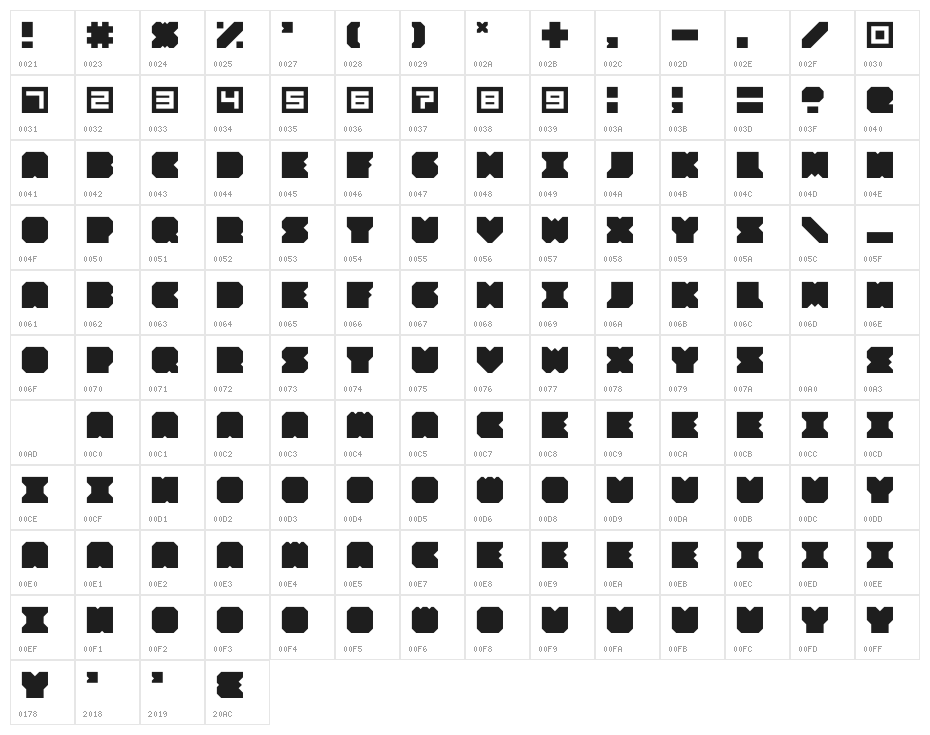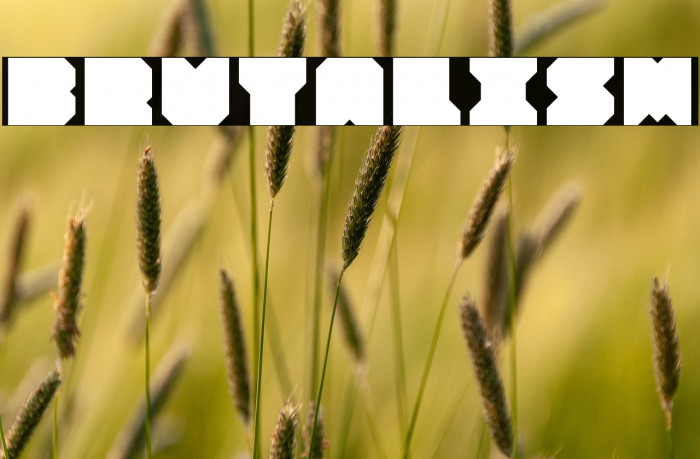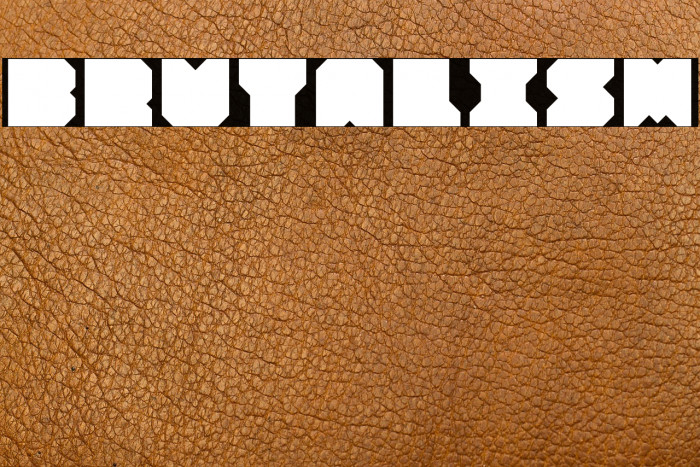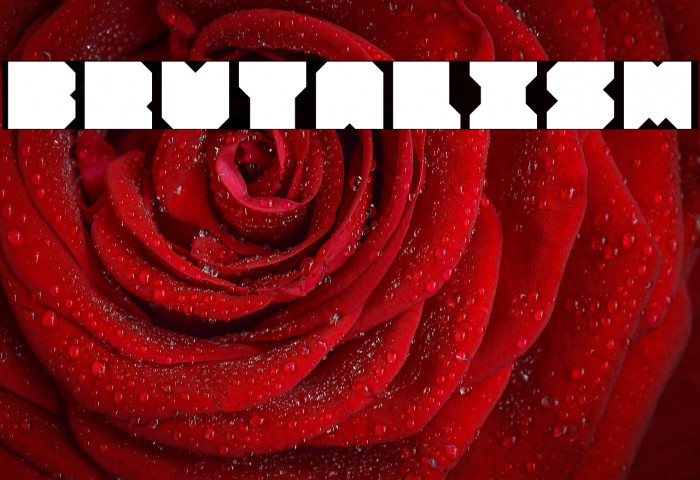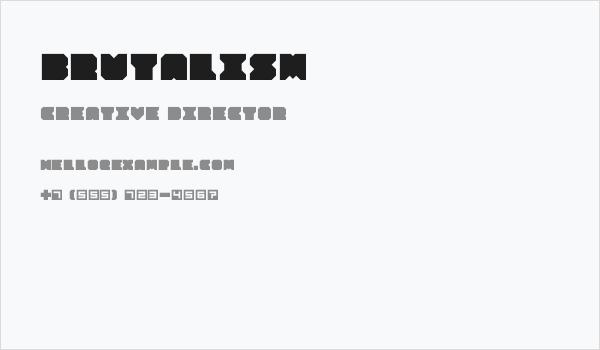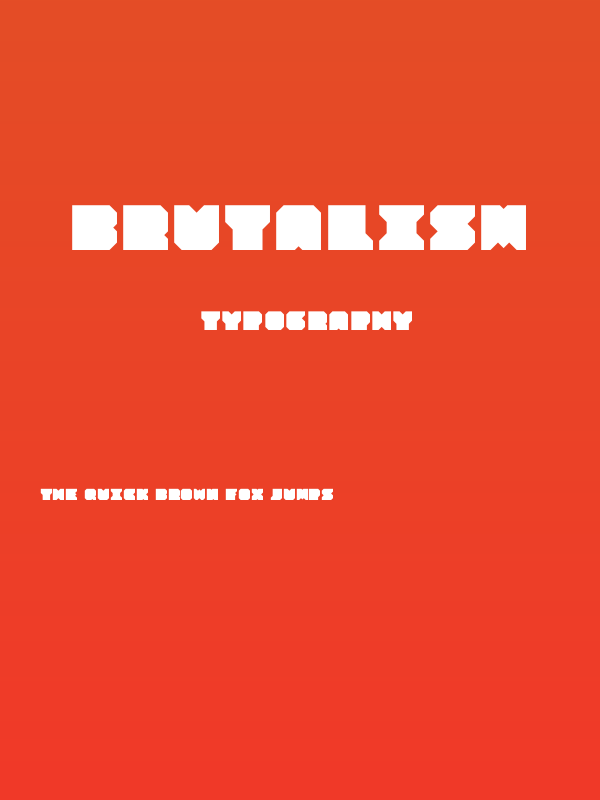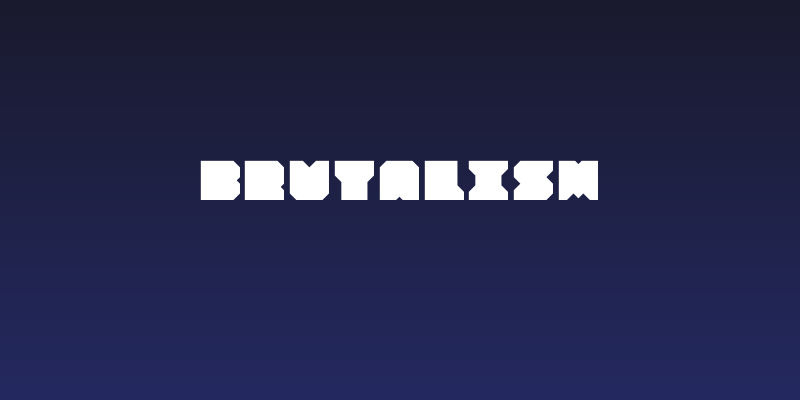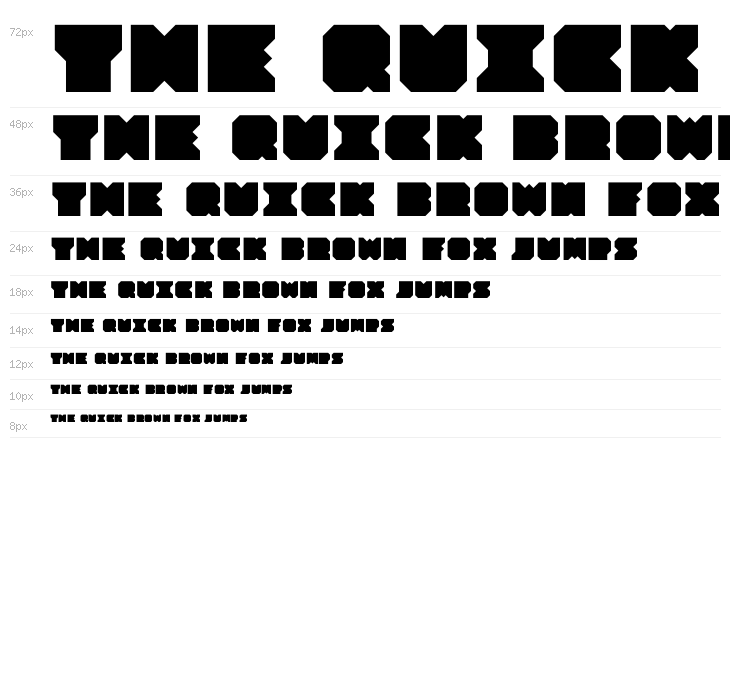
Brutalism Font
Brutalism Description
This font exhibits a bold and geometric style, characterized by its blocky and angular letterforms. The uppercase and lowercase letters share a consistent, heavy weight, creating a strong visual impact. The design is reminiscent of brutalist architecture, with its emphasis on raw, unadorned shapes and a sense of solidity. The numerals are enclosed in squares, adding to the structured and industrial feel. Special characters maintain the same boldness, ensuring uniformity across all glyphs. The overall aesthetic is modern and assertive, making it suitable for projects that require a commanding presence.
| Proposed Projects | Ideal for branding, posters, and editorial design where a strong, impactful typeface is needed. |